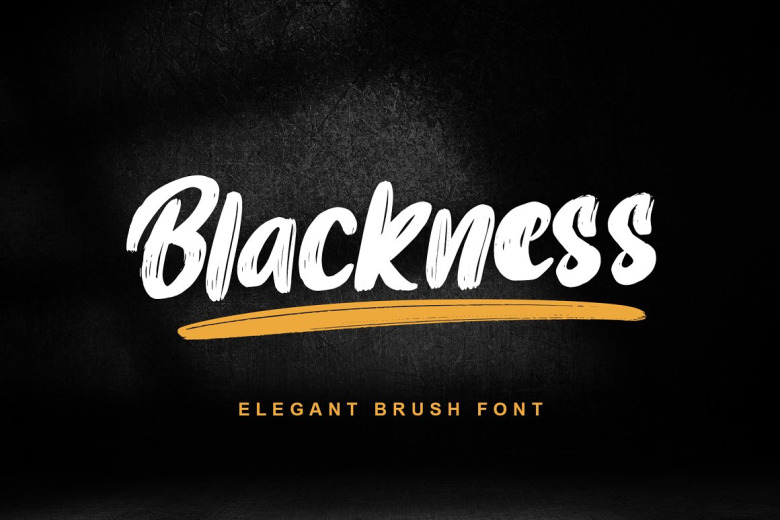
Blackness Font
Blackness is a powerful handwritten genuine brush script font with an individual touch. This modern script is a natural and elegant cursive legible script type which can be utilized for several designs such as headlines, titles, headings, logos, branding, posters, creative arts, paintings, and much more. Bring your design project to life with a spark of uniqueness! This font is PUA encoded which means you can easily access all of the marvelous glyphs and ligatures!
Blackness Brush Script Font